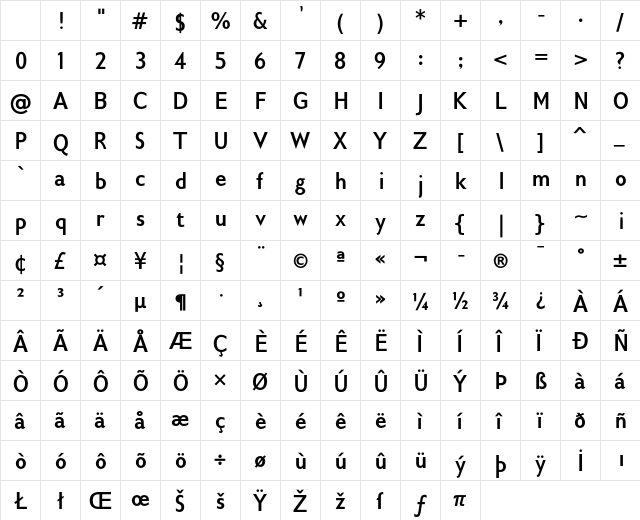
Complete Gillius ADF No2 Cond Bold glyph index. Displaying only characters natively supported by Gillius ADF No2 Cond Bold font.
Gillius ADF No2 Cond is a composed and adaptable typeface that performs quietly and consistently across a wide range of design contexts. Its bold stroke weight gives it real presence on the page. Its narrow stance lets it pack a punch even in space-constrained designs.